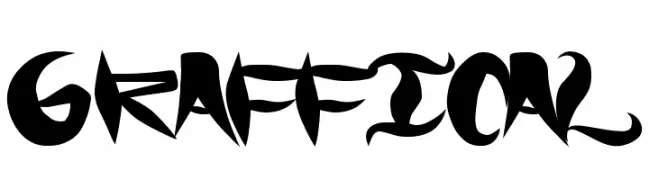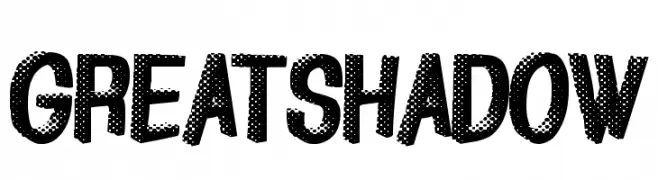
A playful, bubbly font with rounded, cartoonish letterforms.
A bold, decorative font with a retro halftone pattern, perfect for eye-catching designs.
A bold, graffiti-inspired font with sharp, angular lines and dynamic curves.
A playful, bold handwritten font with a casual and lively style.
A fluid and elegant script font with connected letters and graceful curves.